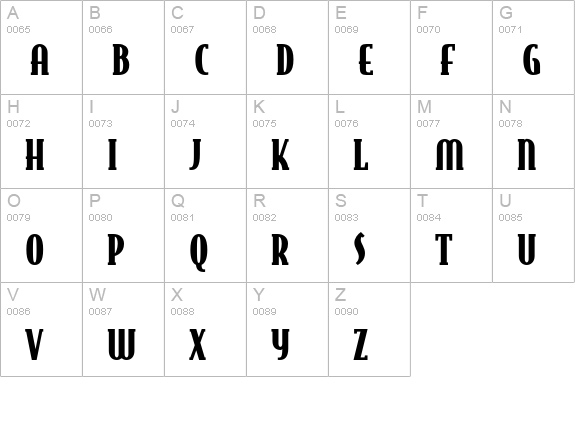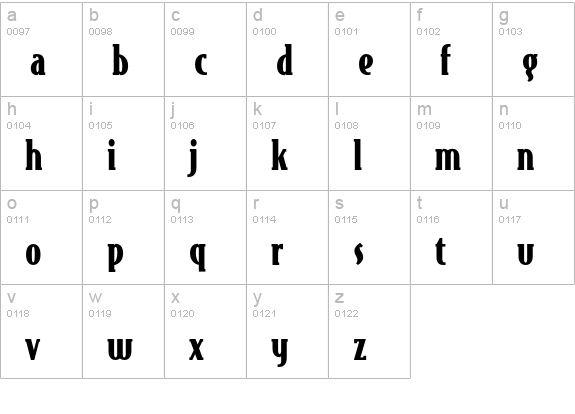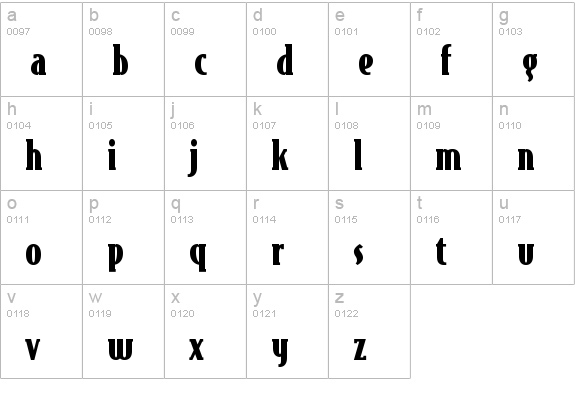
BodegaSerif-BlackOldstyle font is a bold and elegant typeface that exudes a sense of sophistication and classic charm. With its strong serifs and vintage-inspired design, this font is perfect for creating eye-catching headlines, posters, and branding materials. What sets BodegaSerif-BlackOldstyle font apart is that it is available for free download at FontsMarket.com. Now you can add a touch of timeless style to your projects without breaking the bank. Whether you're working on a print design or a digital project, this versatile font will surely make a statement and leave a lasting impression on your audience. Don't miss out on the opportunity to elevate your designs with BodegaSerif-BlackOldstyle font. Download it for free today and start using it to bring your creative vision to life!